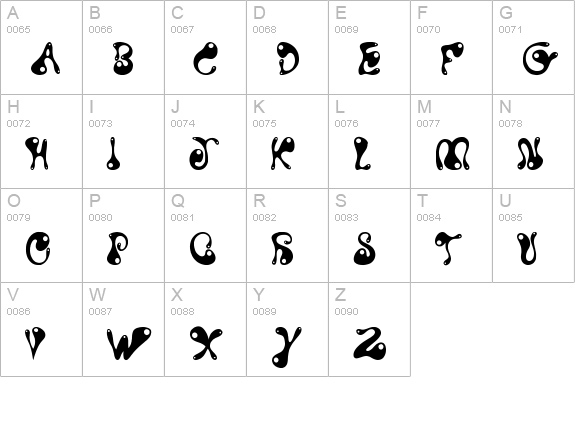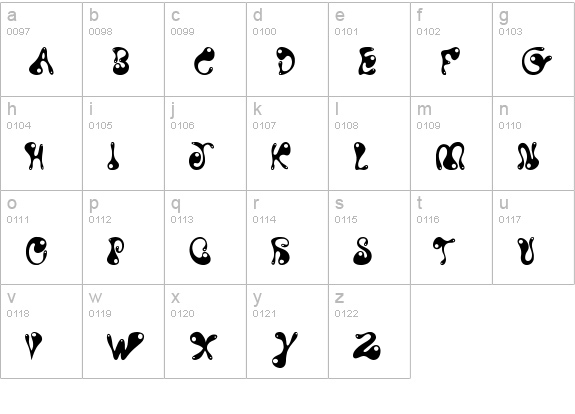
Introducing Water Park Font, a vibrant and playful typeface that captures the joyful essence of a thrilling day at the water park. This font is designed to bring a splash of fun and excitement to any project you embark on. With its unique and whimsical letterforms, Water Park Font is perfect for creating eye-catching headlines, posters, logos, and more. Featuring a wide range of characters, including uppercase letters, lowercase letters, numerals, and punctuation marks, this font offers endless possibilities for creative expression. Its bold and energetic style will instantly grab attention and add a lively touch to any design. But what makes Water Park Font even more enticing is that it is free! Yes, you read that right. You can freely download this amazing font at FontsMarket.com. Whether you are a professional designer or someone who loves to dabble in creative projects, this font is a must-have in your collection. So dive into the world of Water Park Font and let your imagination run wild. Create captivating designs that capture the spirit of laughter, water splashes, and thrilling rides. Whether you're designing a flyer for a water park event, a summer-themed advertisement, or simply want to add a touch of playfulness to your personal projects, Water Park Font is the perfect choice. Download Water Park Font today at FontsMarket.com and enjoy the freedom to express your creativity with this delightful typeface. Let the waves of inspiration wash over you as you bring your designs to life with this truly remarkable font. Get ready to make a splash and leave a lasting impression with Water Park Font!